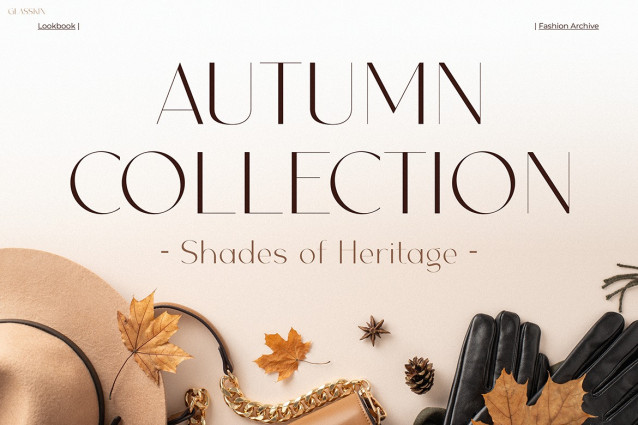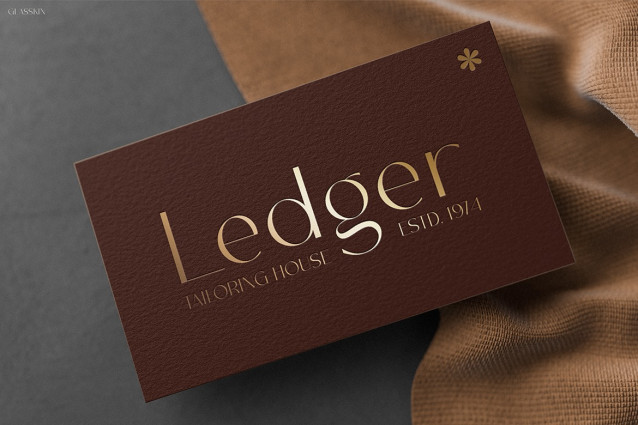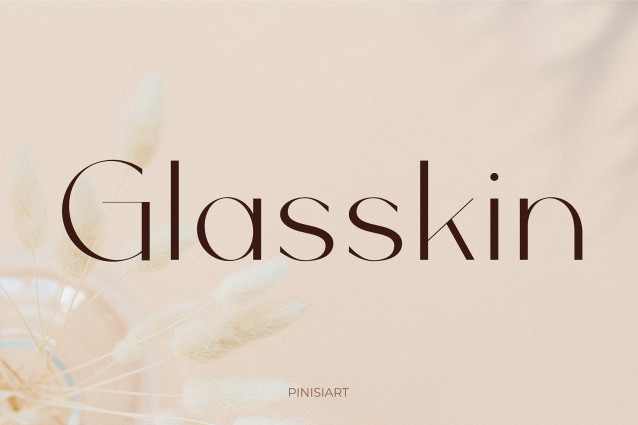
Glasskin Font
Glasskin Font is not just another typeface—it is a masterpiece of elegance and precision. Inspired by modern glass aesthetics, this font delivers clean lines, smooth curves, and a sophisticated structure. As a result, every word looks polished and professional. Its style blends luxury with minimalism, which makes it stand out in any creative project. Moreover, the refined design ensures it feels chic, fresh, and fashion-driven. With Glasskin, your words do not just appear—they shine with confidence and class.
Because of its timeless charm, Glasskin elevates design instantly. It looks modern; however, it never loses touch with classic beauty. This duality makes it unique and versatile. In addition, the balance of sharp precision and elegant flow creates a premium look that works in both bold and subtle contexts. Therefore, designers find it an essential tool for branding, digital design, and editorial projects alike.